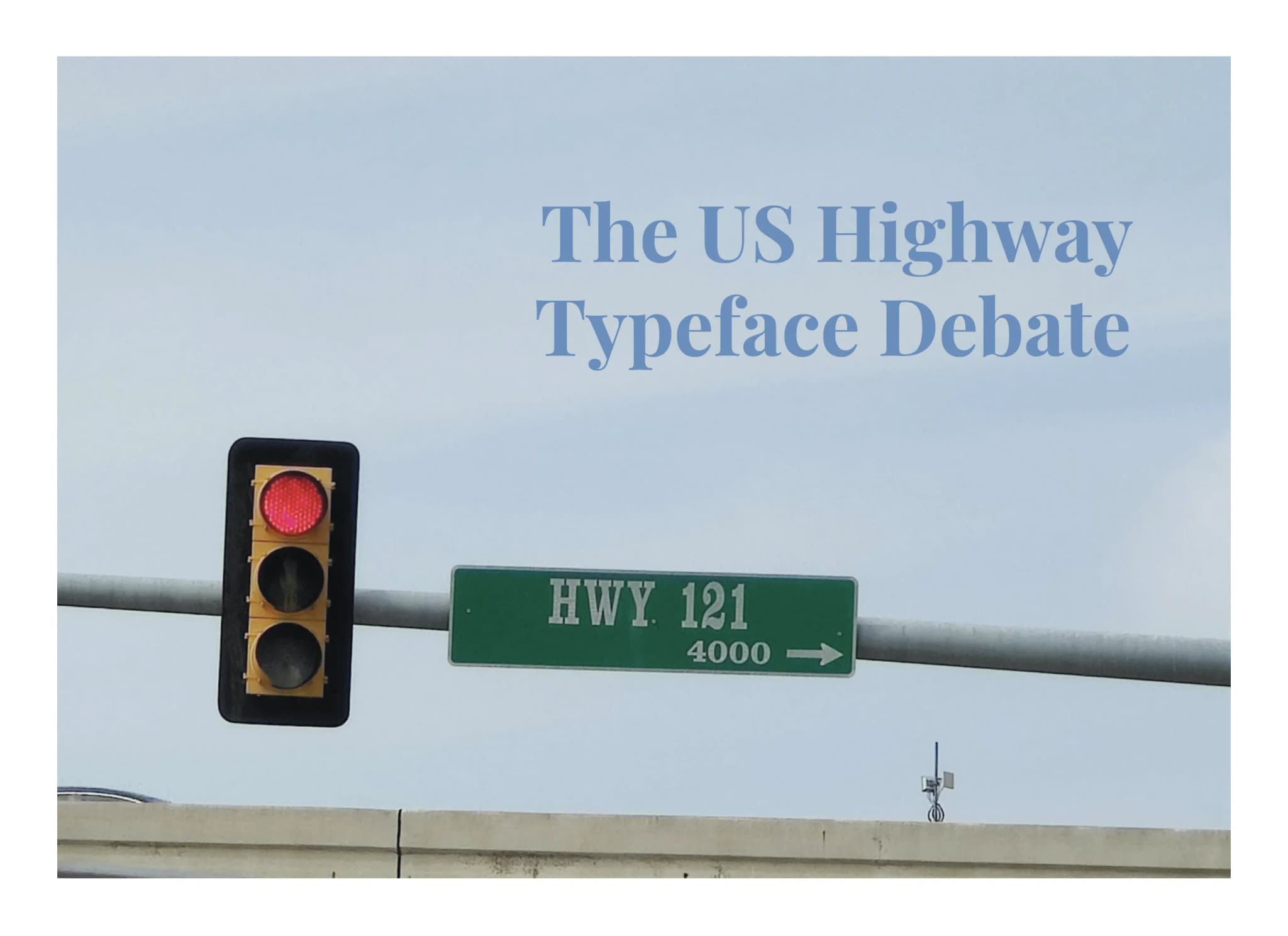
This a chapter opener from a book made by Allie Zhang called On My Way Home. This chapter opener needs to go well with the font chosen for the body text, which is Karla, a san-serif typeface with rounder shapes. Pairing this rounder san-serif font with a rounded-edged serif font is a good choice.